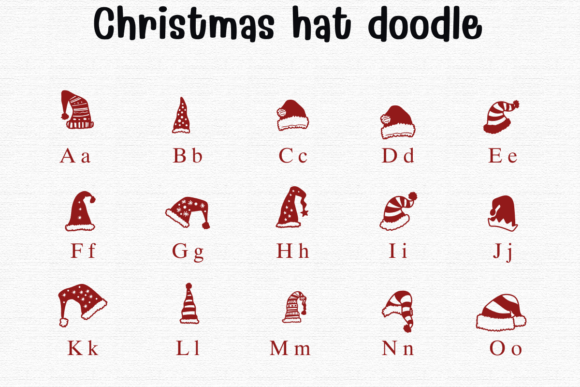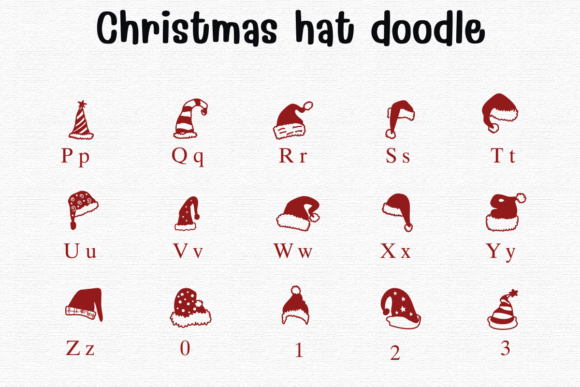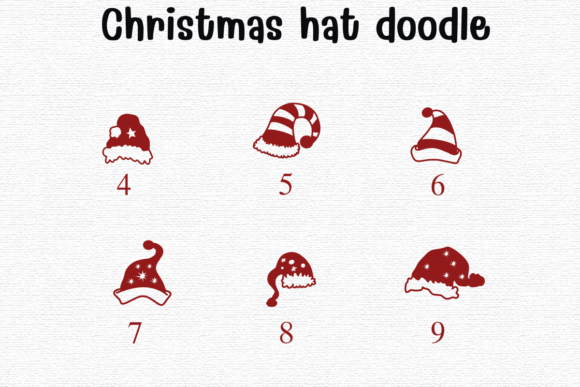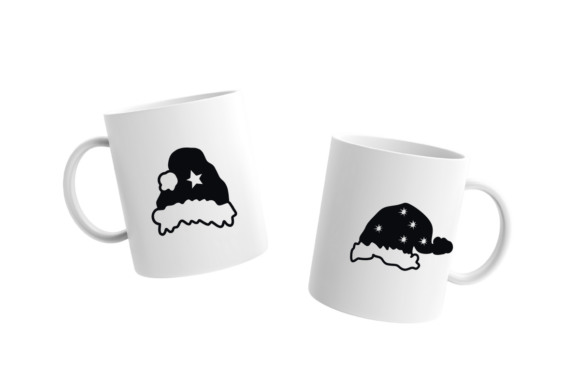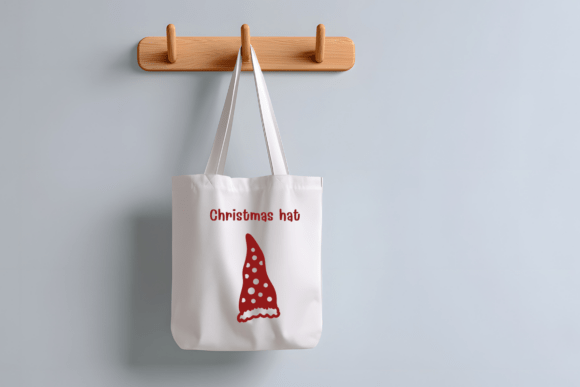
Introduction to Christmas Hat Doodle Font
Christmas Hat Doodle is a cute dingbats font.
Add it to your festive projects and you will love the results .
Key Features of Christmas Hat Doodle Font
Why Choose Christmas Hat Doodle Font?